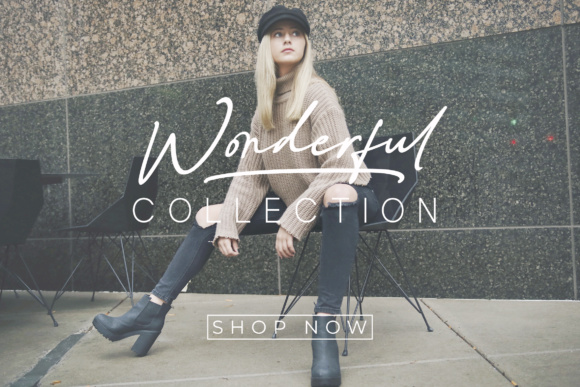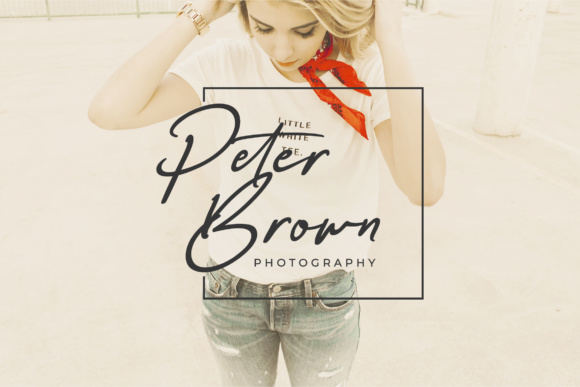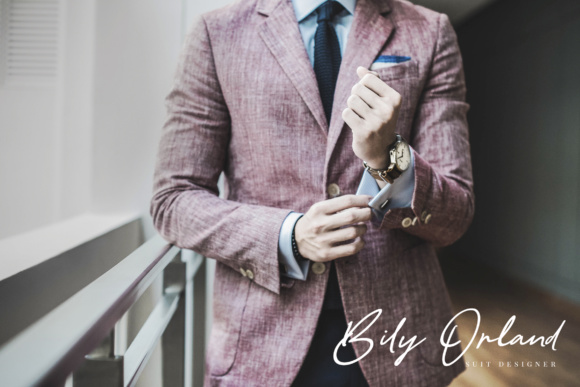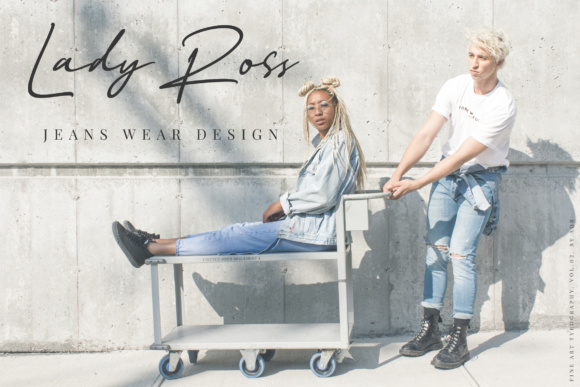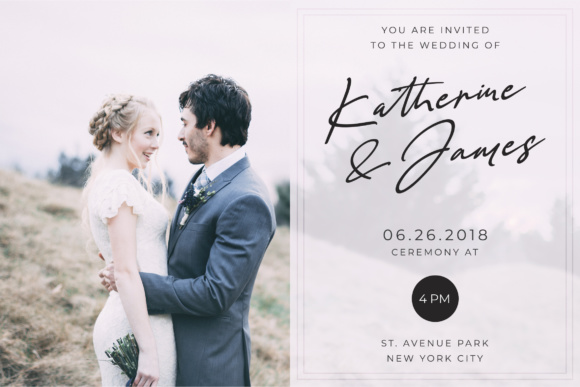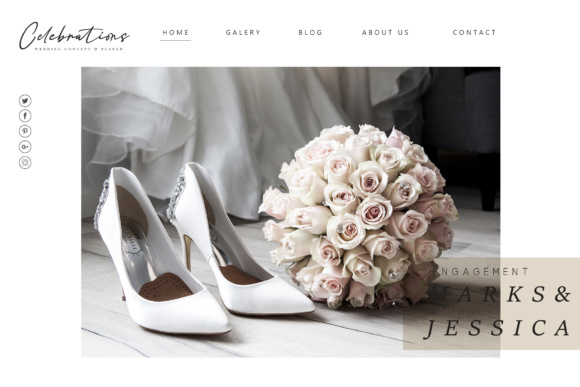
Introducing Anastacia Font: Elevate Your Designs with Elegance and Sophistication
In the world of typography, fonts play a crucial role in defining the aesthetic and tone of a project. Whether you’re working on a logo, branding materials, or a crafting project, the right font can make all the difference. If you’re looking for a signature font that exudes a laissez-faire yet refined appeal, look no further than Anastacia Font. This gorgeous font is designed to add a touch of elegance and sophistication to your work, making it perfect for projects that require a unique and eye-catching focal point.
What is Anastacia Font?
Anastacia Font is a beautiful signature font that boasts a distinctive and refined style. Its elegant curves and fluid lines make it an ideal choice for designers and crafters who want to add a touch of sophistication to their projects. Whether you’re working on a print project, such as a logo, business card, or brochure, or a digital project, Anastacia Font is sure to impress.
Key Features of Anastacia Font
• Unique and Signature Style: Anastacia Font has a one-of-a-kind design that sets it apart from other fonts. Its distinctive curves and lines make it perfect for projects that require a signature font.
• Laissez-Faire yet Refined Appeal: This font strikes the perfect balance between elegance and sophistication, making it suitable for a wide range of projects.
• Versatile: Anastacia Font can be used in various projects, including logos, branding materials, print projects, and digital projects.
• Easy to Read: Despite its elegant design, Anastacia Font is easy to read, making it perfect for body text and headlines.
Why Choose Anastacia Font?
There are many reasons why Anastacia Font is an excellent choice for designers and crafters. Here are a few:
• Adds Elegance and Sophistication: Anastacia Font can instantly elevate your project with its refined and elegant design.
• Stand out from the Crowd: With its unique style, Anastacia Font can help your project stand out from the crowd and grab attention.
• Perfect for Branding: This font is ideal for branding projects, as it can help create a distinctive and memorable identity for your brand.
How to Use Anastacia Font in Your Projects
Using Anastacia Font in your projects is easy. Here are a few tips:
• Pair it with Other Fonts: Anastacia Font pairs well with other fonts, so feel free to experiment with different combinations to create a unique look.
• Use it as a Headline Font: Anastacia Font is perfect for headlines and titles, as it can add a touch of elegance and sophistication to your text.
• Add it to Your Branding Materials: Use Anastacia Font in your branding materials, such as logos, business cards, and brochures, to create a consistent and memorable identity.
Author Aqr Typeface
In conclusion, Anastacia Font is a stunning signature font that can elevate your designs with its elegance and sophistication. Its unique style, versatility, and ease of use make it an excellent choice for designers and crafters who want to add a touch of refinement to their projects. Whether you’re working on a print project or a digital project, Anastacia Font is sure to impress. So why not give it a try and see how it can transform your designs?
With Anastacia Font, you can create stunning designs that are sure to grab attention. Its laissez-faire yet refined appeal makes it perfect for projects that require a unique and eye-catching focal point. So, what are you waiting for? Download Anastacia Font today and start creating beautiful designs that showcase your creativity and style!